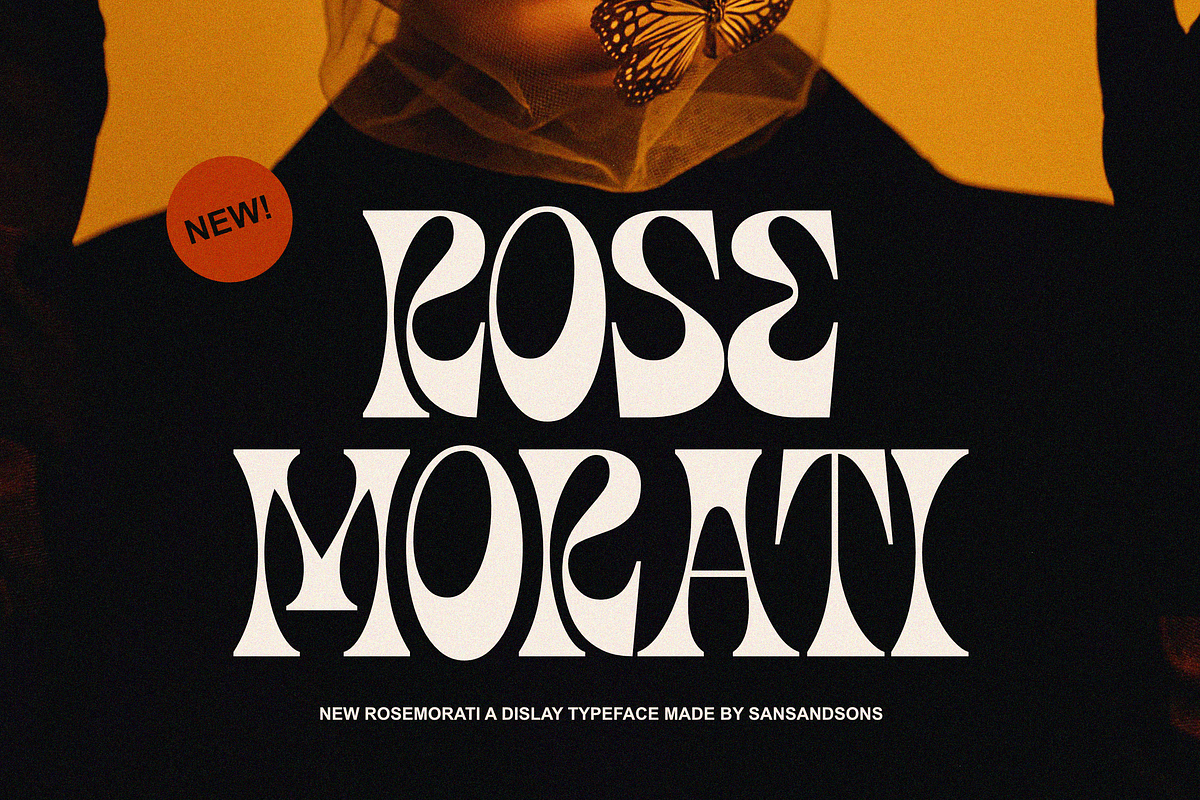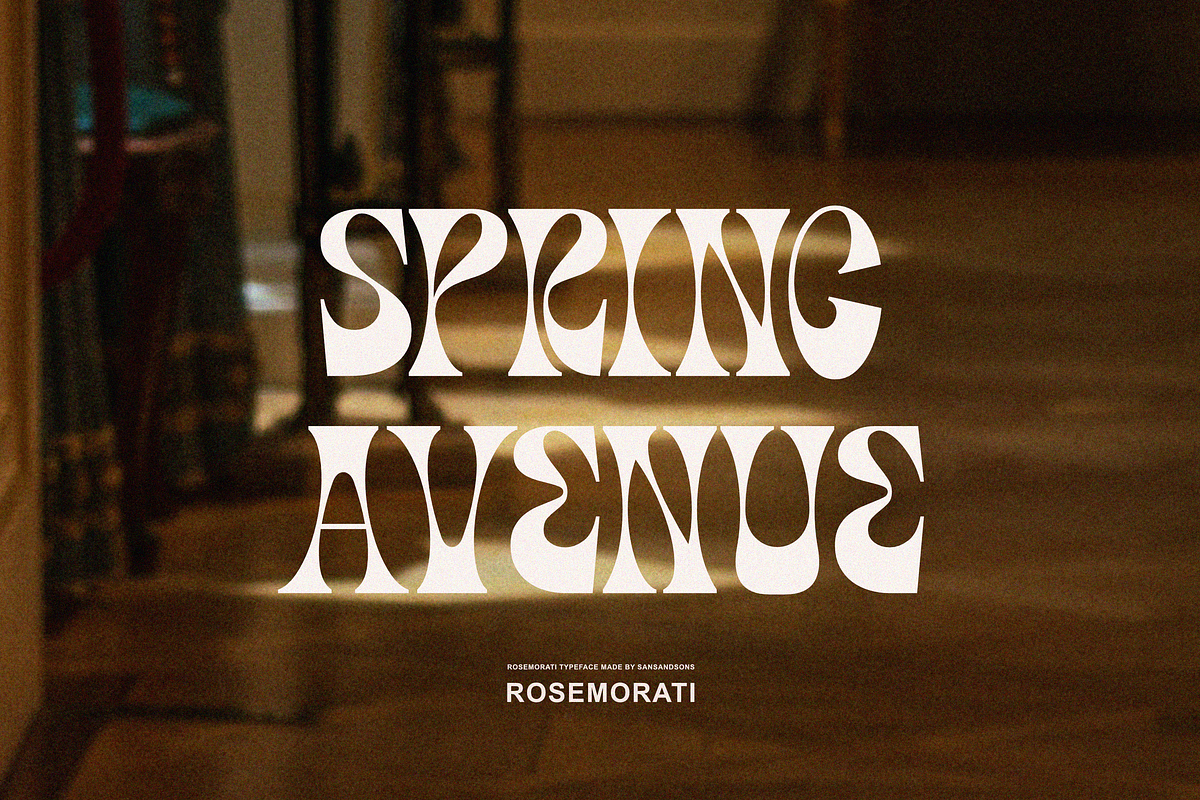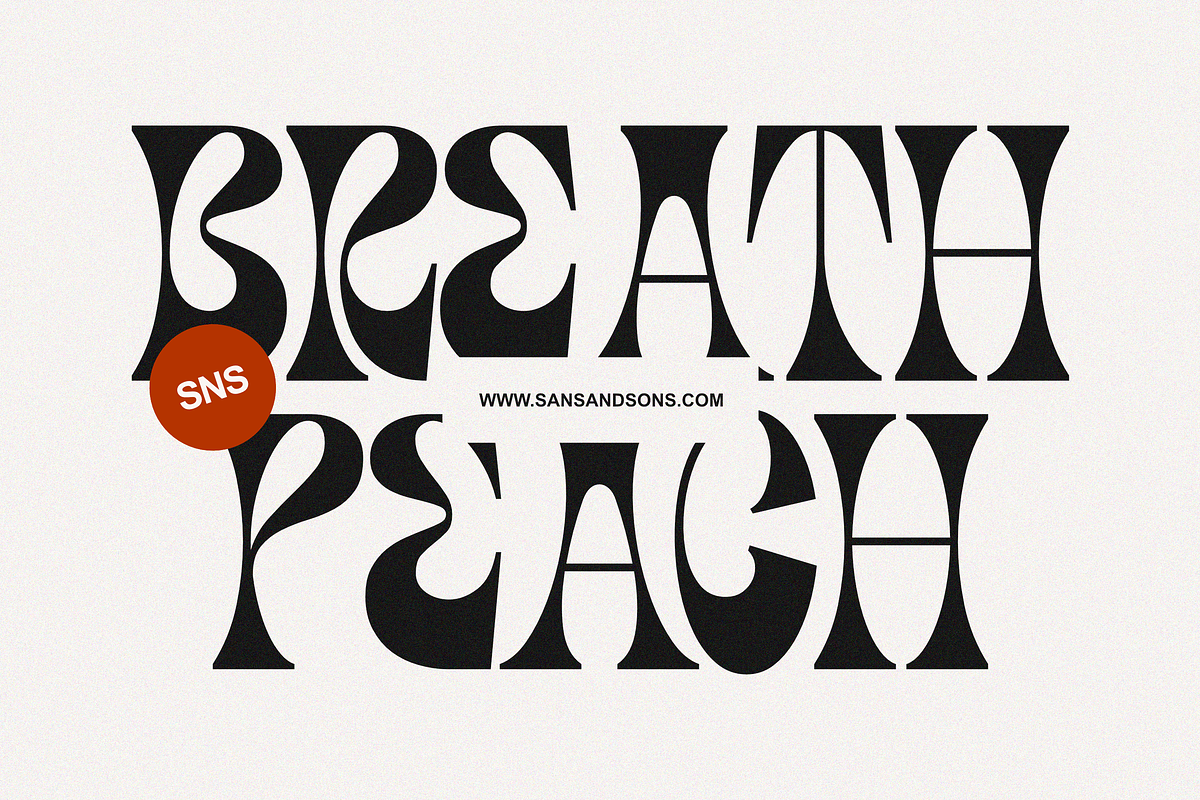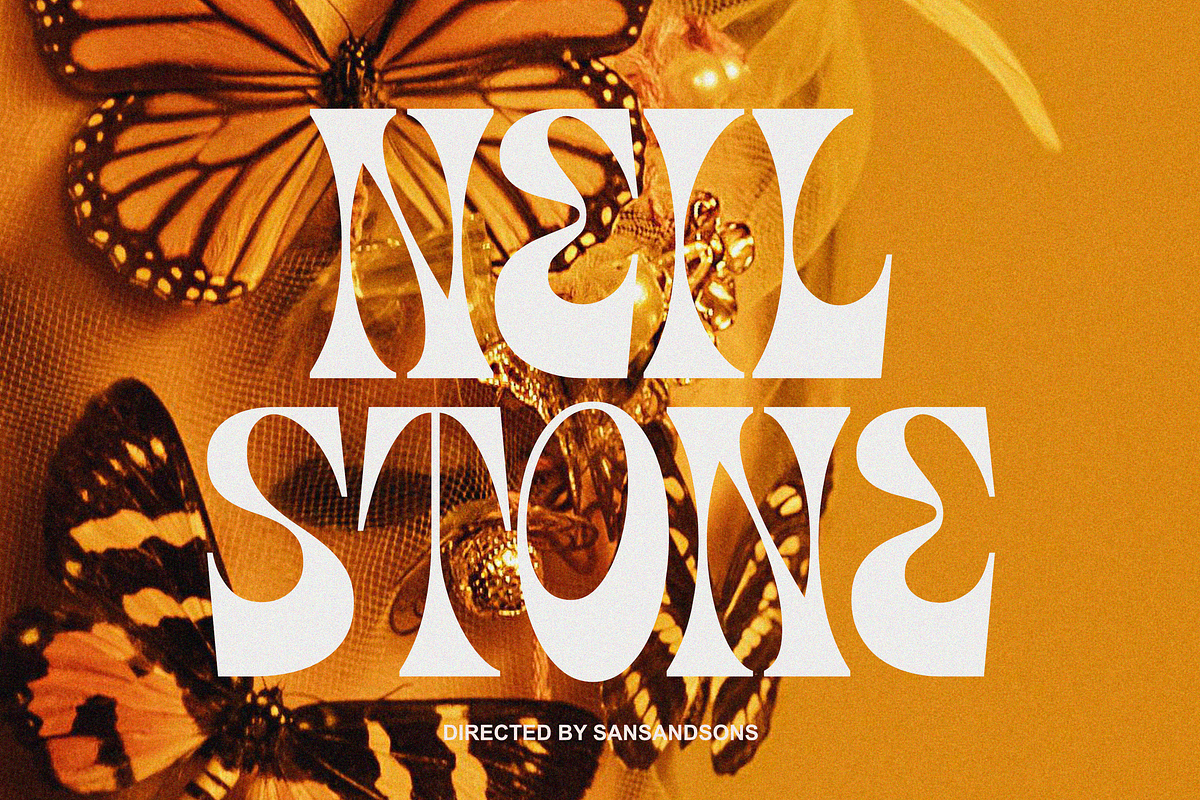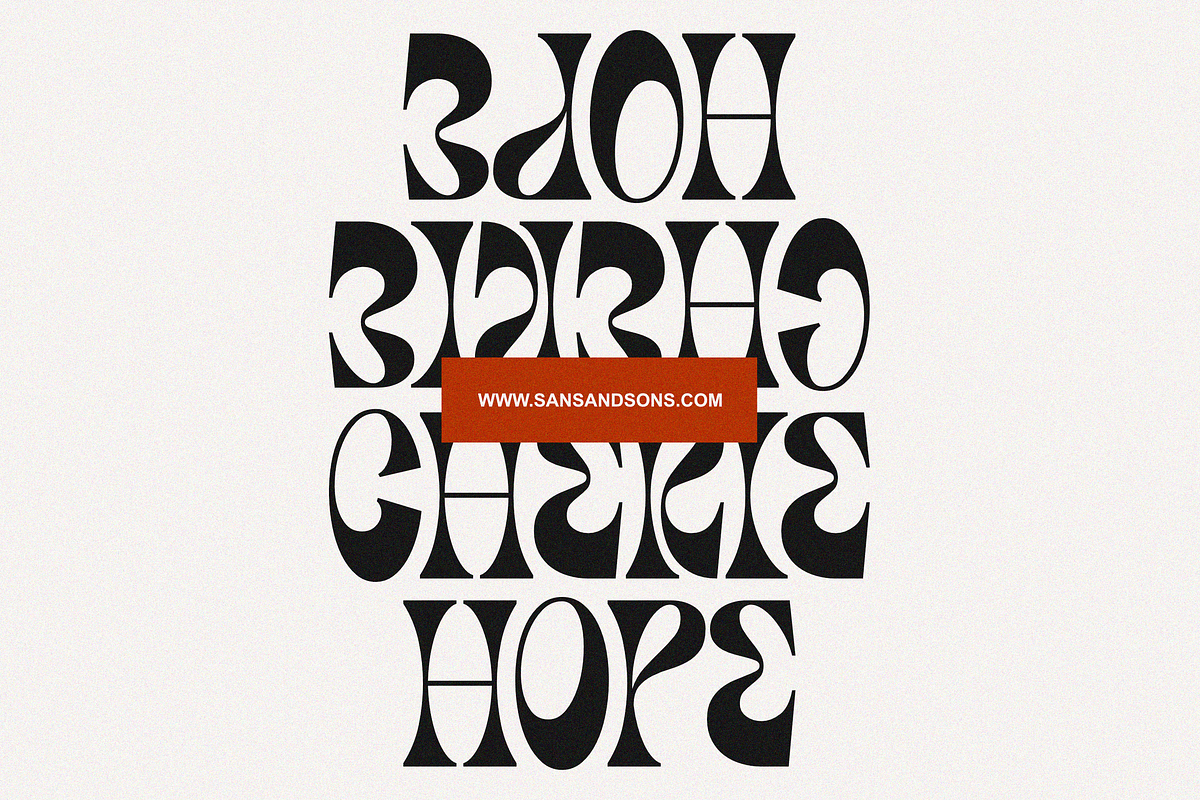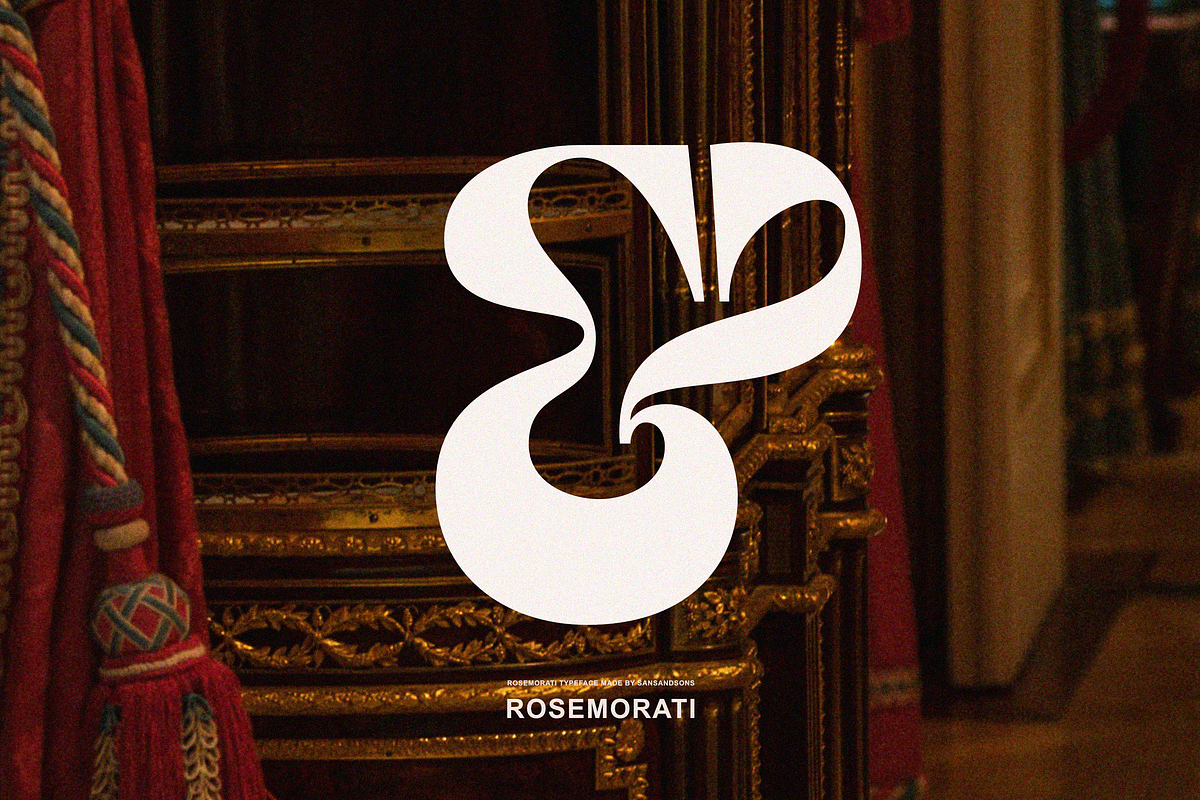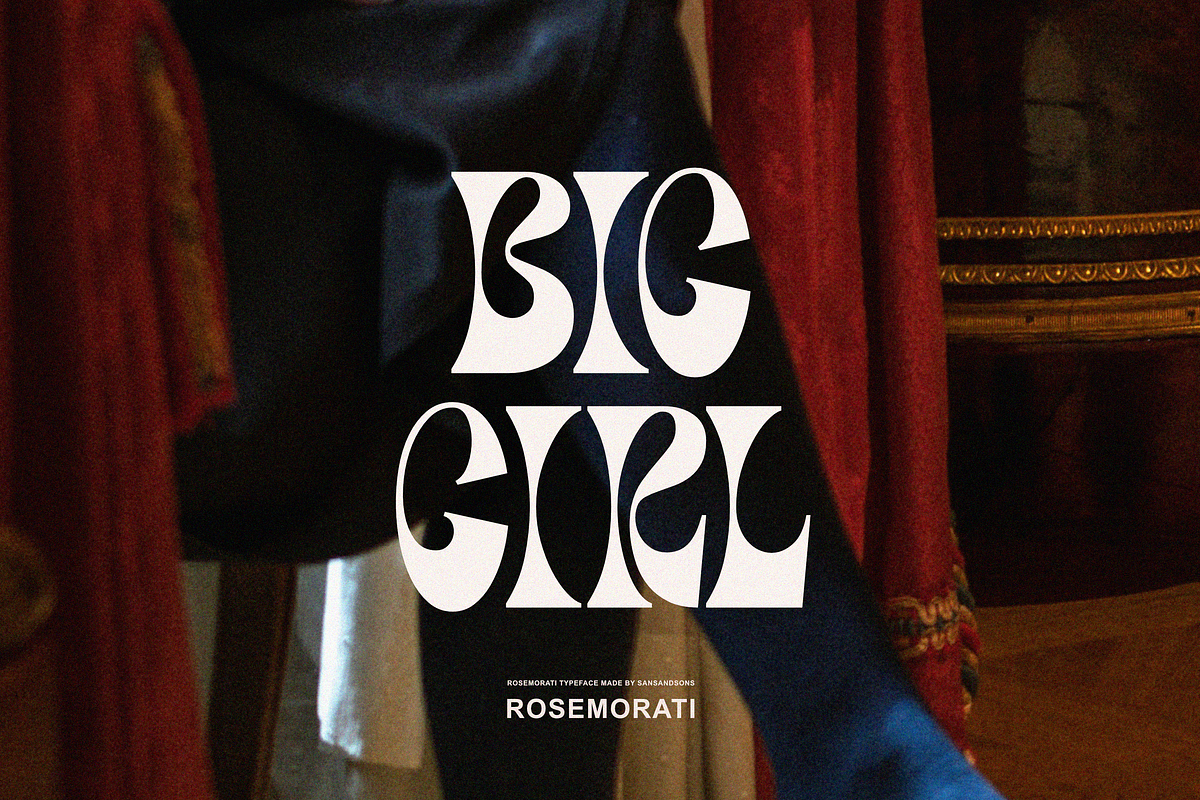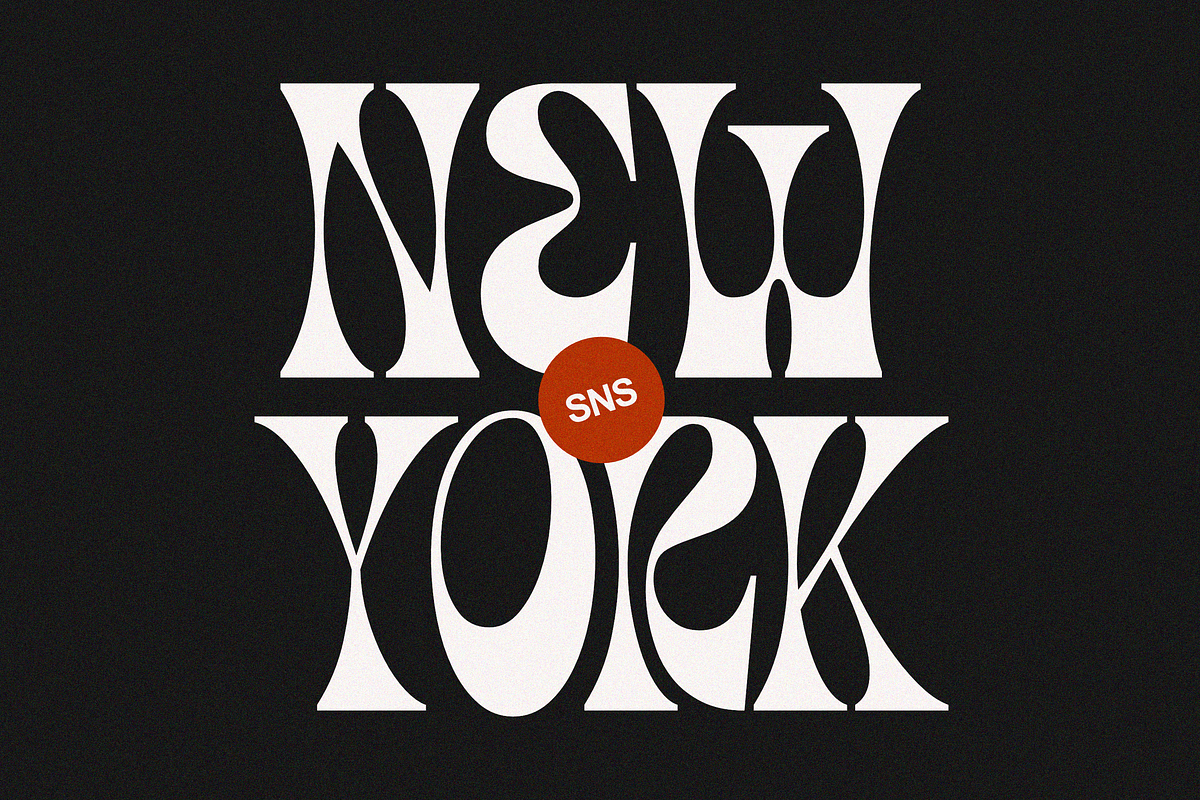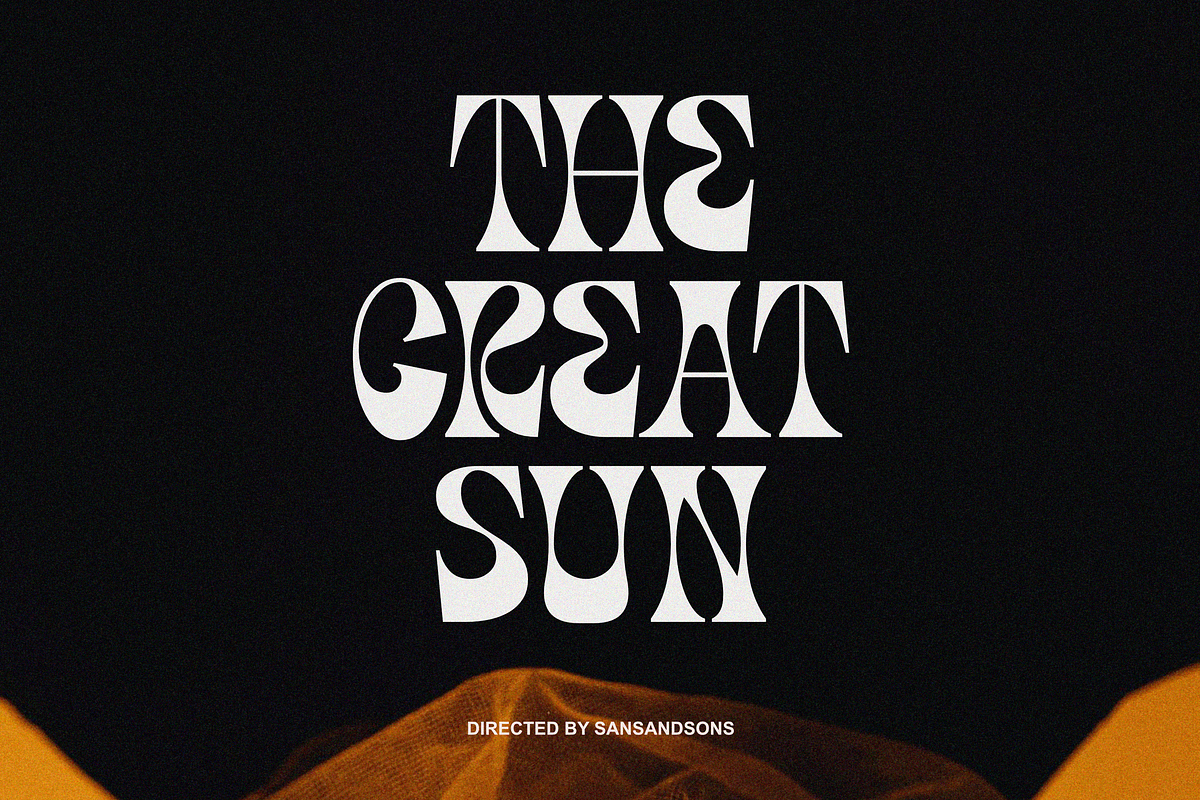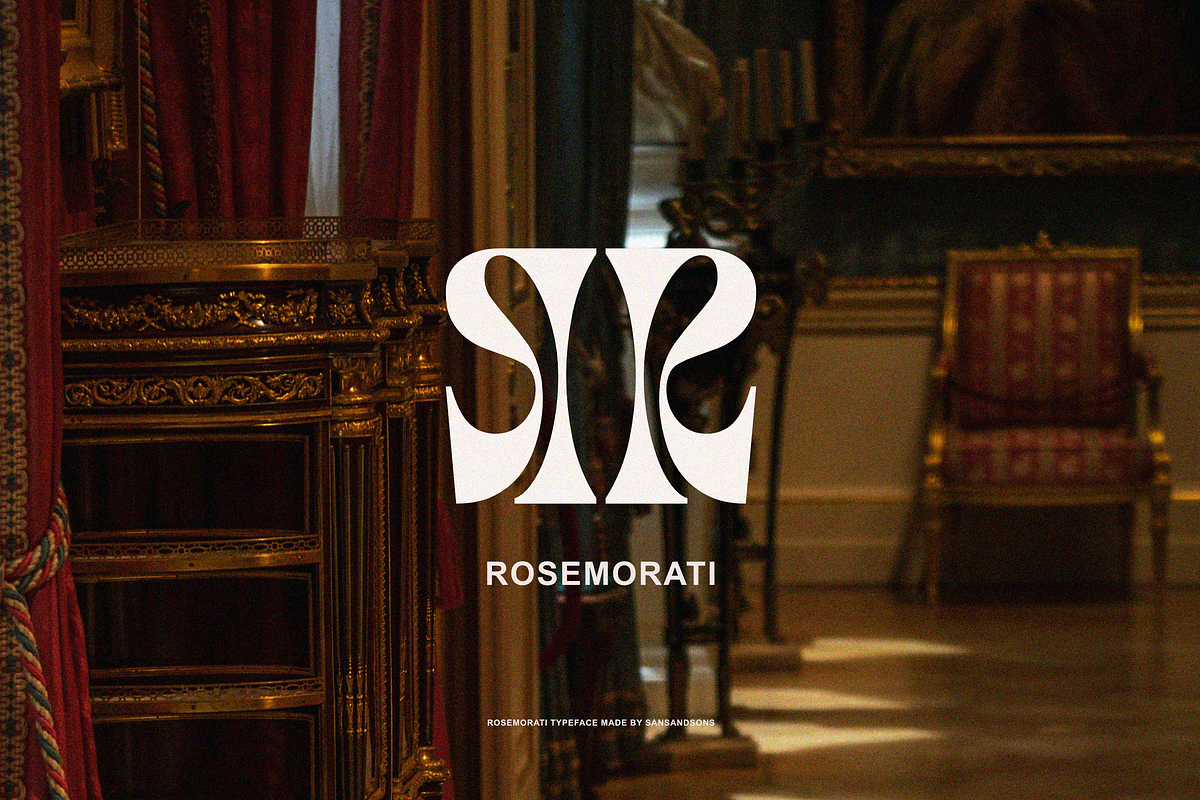
Rosemorati
Rosemorati - Made by Sans And Sons
Meet "Rosemorati" — a bold serif font merging groovy, classic with contemporary unique style.
With graceful curves and subtle serifs, this font adds sophistication to any project. Versatile for branding, invitations, or editorial design.